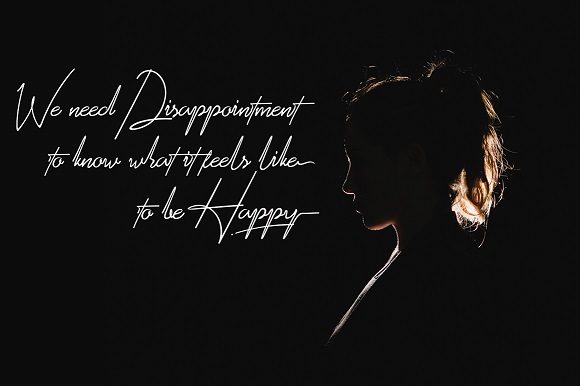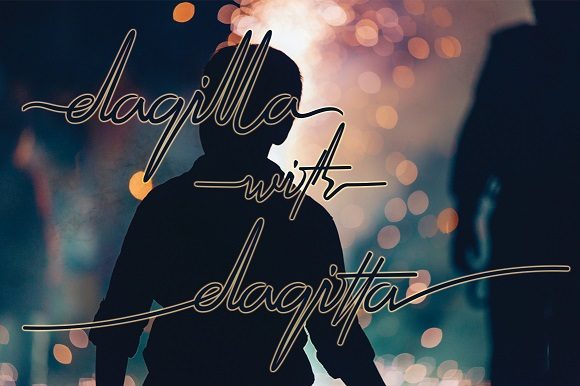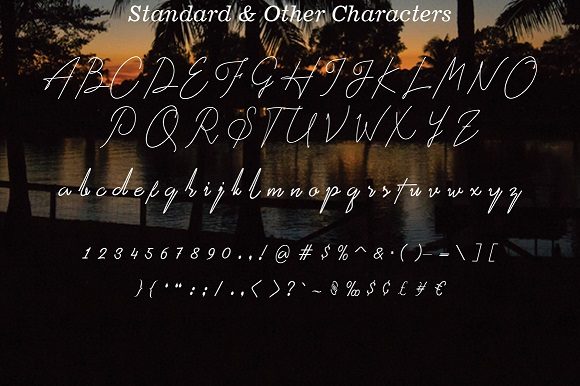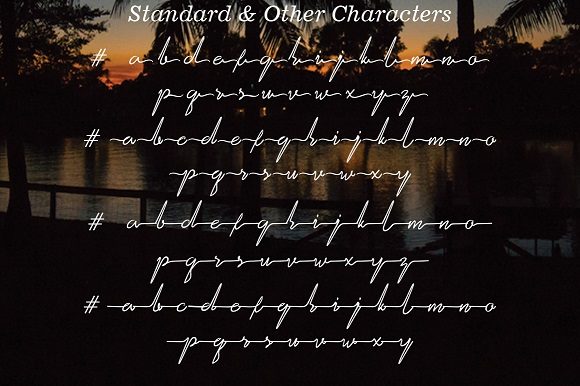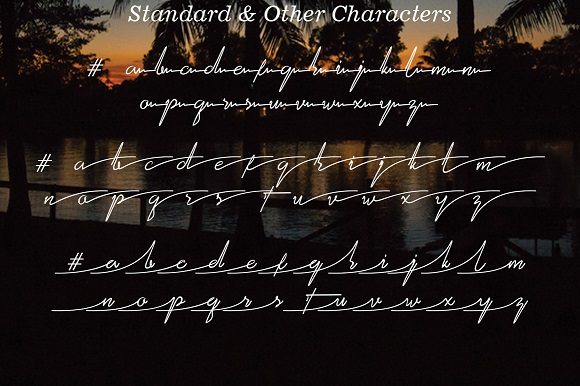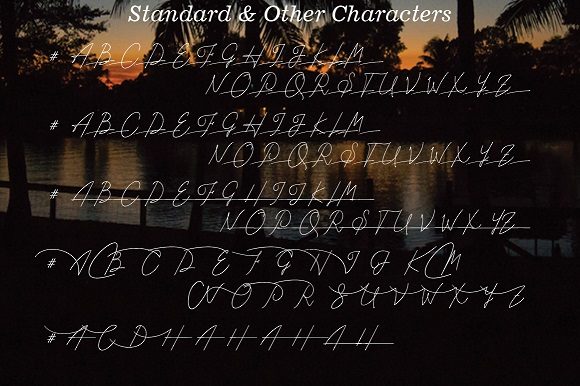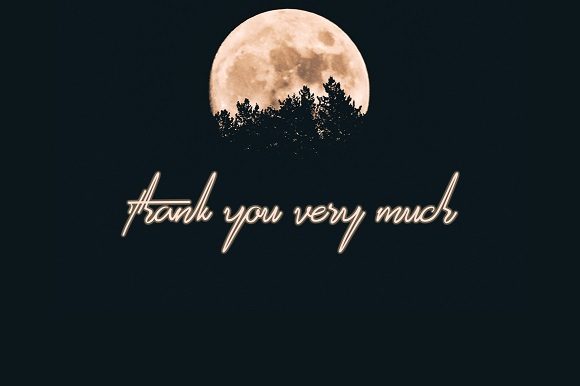
Arianthy Font
About Arianthy Font
Arianthy is a new fresh handwritten calligraphy font. Use it for any design project that requires a personalized appearance!